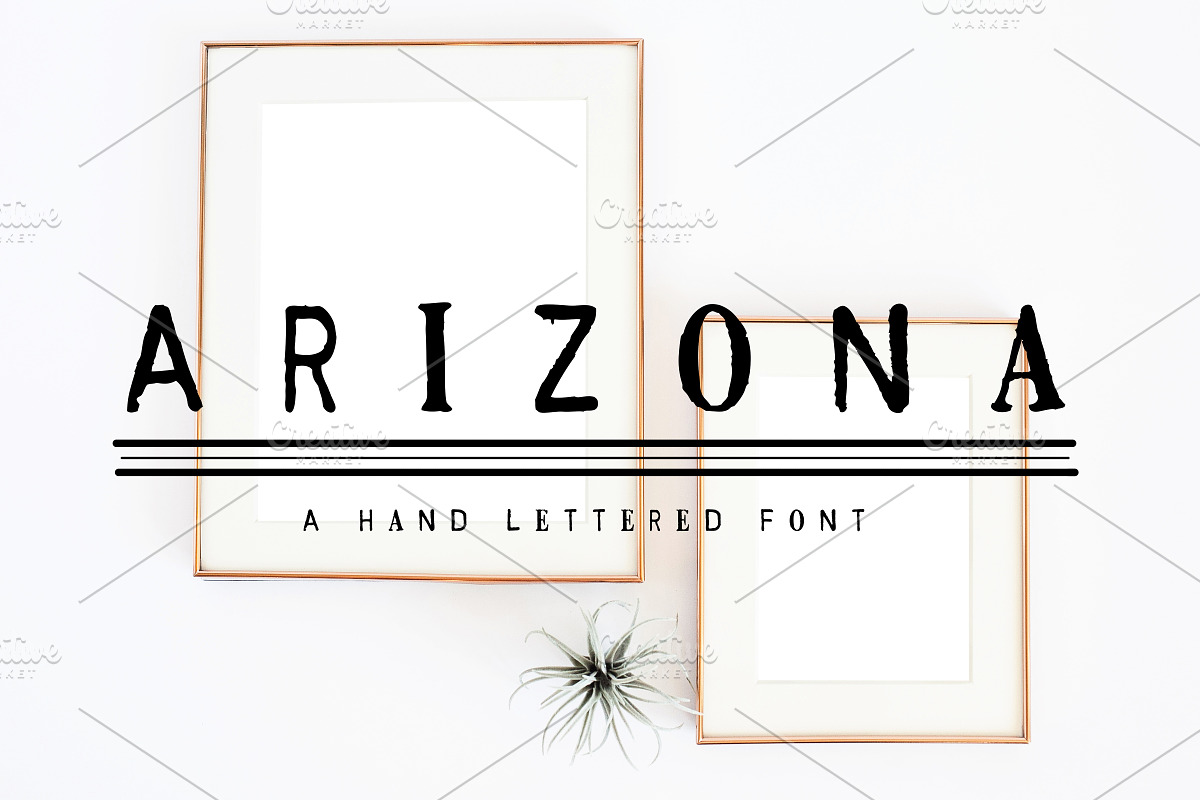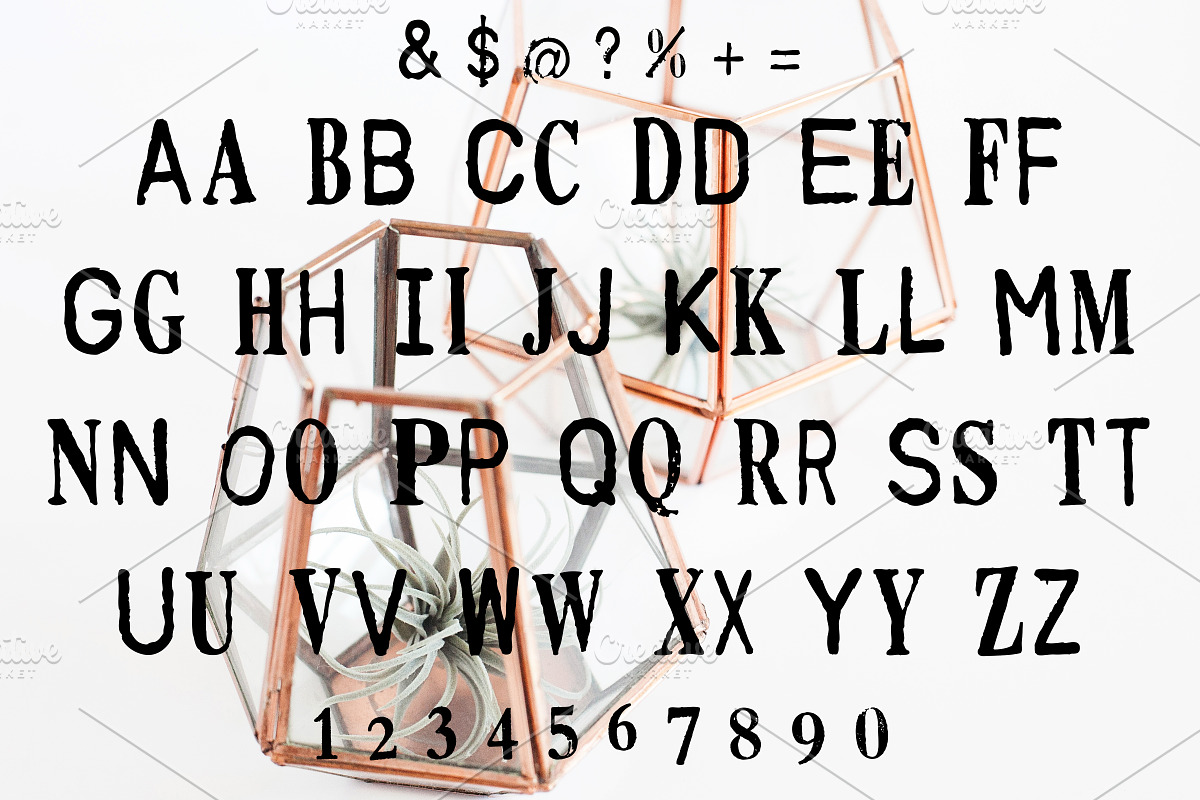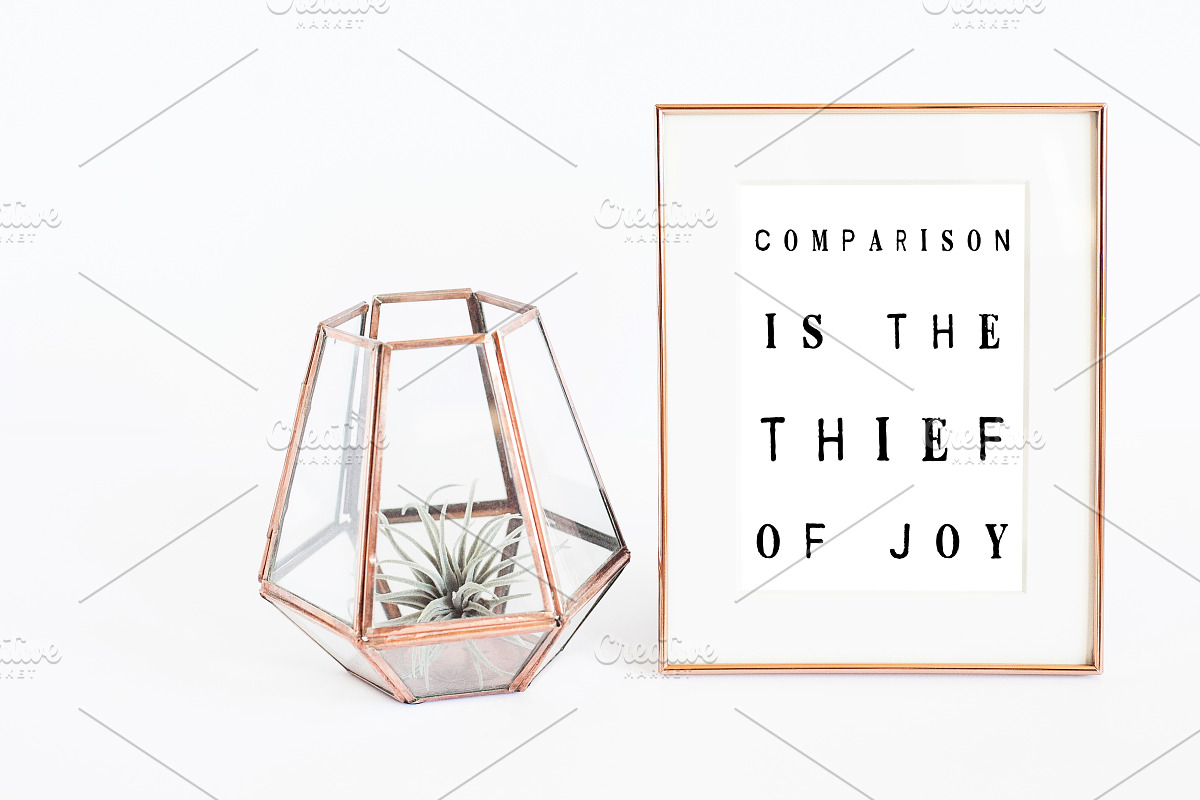
ARIZONA Hand Lettered Font
ARIZONA Hand Lettered Font by Rhonna Designs is a font selected for branding, posters, packaging, typography.
- Arizona is a wonderful uppercase font available in a TTF file with numbers and symbols.
ARIZONA Hand Lettered Font by Rhonna Designs fits naturally into Branding, posters, packaging, typography.